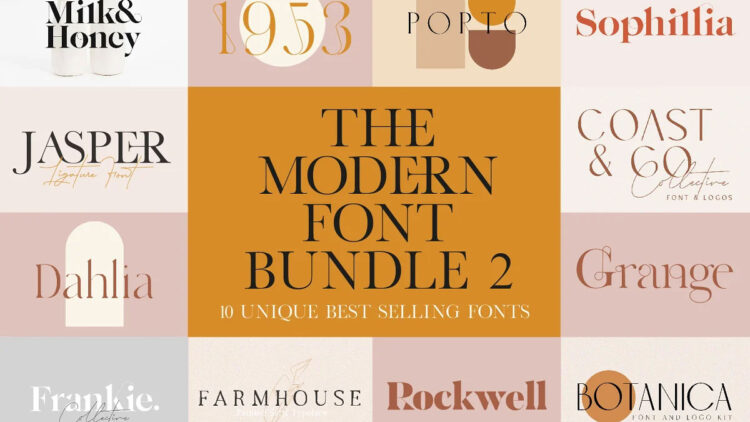
11 modern elegant font bundle
The Next Big Thing In 11 Modern Font Bundle
Here we present Modern Elegant Font Bundle Collection for graphic designers to help them improve the look of their projects and save time.
We’ve included various Modern Elegant Fonts in this post with a collection of bundles for use in logos, advertising, fashion design, labels, posters, packaging design, signs, and more. These all fonts come with appealing styling and various language support and many more.
Then what is the next big thing you will miss if you do not grab these 11 modern font bundles in your collection?
11 Modern Font Bundle
1. The Modern Font Bundle
Following the overwhelming success of one of the most talented font creators New Tropical Success shop’s first font collection.
Here we are presenting the modern elegant font bundle from the shop of New Tropical Success shop.
Ten incredibly distinctive typefaces that are sure to stand out while maintaining a modern stylish touch.
You’ve probably encountered large font packs with a lot of typefaces or dull generic fonts.
ONE OF THEM IS NOT THIS!
Fonts like Sophillia, Jasper & Grange have unique ligatures, while Modernica, Coast & Co, and Botanica are contemporary reinterpretations of classic eras.
Look below for further information on the specific typefaces.
2. Handlettered Font Bundle
The All-Inclusive Hand-lettered and super elegant font bundle is a never-ending present.
3. Aiyari Handmade Font Bundle
OpenType features such as stylistic alternatives, ligatures, and swashes are included. Thunderstrom, Lovadelic, Dreadful, Violence, and The Beardy are included in this package.
4. The Aviator Font Collection
The Aviator Font Collection is the type of cooperation of four antique fonts that are all 100% fantastic vintage look! Create your own vintage look with Elegant Clean Letterpress or Distressed Letterpress.
Logos, advertising, apparel design, labels, posters, package design, signage, and more may all benefit from them.
5. Pontiac Inline Font Pack
Pontiac Inline Font is a layered Art Deco font created in Paris by Fanny Coulez and Julien Saurin.
This well-balanced inline font may be tweaked to improve your projects and give them a unique and contemporary vibe.
6. El Camino Font Collection
EL CAMINO is a Spanish word that means “The Way.”
This collection was inspired by the ancient west, barren locations, the California desert, and Mexico’s desert.
With a hint of whiskey or mezcal flavor.
“El Camino” depicts each person’s personal path through life, as well as reflection and learning. This handcrafted typeface is perfect for logos, graphics, labels, clothing, and anything else you can think of.
Experiment with different ligatures and ligatures that aren’t obvious.
Change the uppercase, caps, soft, texture, or outline variants for a new appearance.
El Camino Slim and Bold are a great match.
7. Neon – An Outline Font Bundle
The NEON outline font pack is an all-caps, contemporary, and edgy collection of strong serifs.
This package contains five sibling typefaces, each with its distinct set of characteristics.
These typefaces are ideal for usage in editorials, logos, and large headers on your website or printed products.
8. Portabella Font Collection
The Portabella Collection has arrived! There’s a hand-painted script, a delicately drawn serif, and a bonus SVG style in this exquisite font duo. These typefaces are perfect for headlines, branding, and bold headers on your website or printed materials.